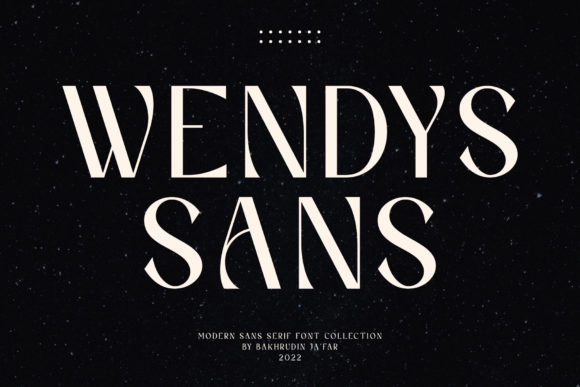
Prepare to be mesmerized by Wendys Font, a sans serif font that dances with elegance and distinction. Its unique stroke characters add a touch of whimsy and charm, making it a versatile choice for a wide range of projects. Whether you're crafting eye-catching digital designs, making presentations that demand attention, or creating heartfelt greeting cards, Wendys Font has the power to transform your creative visions into stunning realities.
With its modern and stylish appearance, Wendys Font is the perfect choice for web banners that aim to captivate and engage. Its crisp lines and distinct letterforms ensure that your messages shine with clarity and impact, leaving a lasting impression on your audience. Unleash your creativity and let Wendys Font elevate your web presence to new heights.
Dive into a world of boundless possibilities with Wendys Font. Its versatility extends beyond web banners, making it an ideal companion for crafting projects, presentations, and greeting cards. Let your imagination run wild as you explore the endless opportunities that await you with this remarkable font. From personalized invitations that exude warmth and charm to captivating social media graphics that demand attention, Wendys Font is your trusty ally in creating designs that resonate and inspire.
Embrace the beauty of seamless readability with Wendys Font. Its carefully crafted letterforms ensure effortless reading experiences, making it the perfect choice for presentations that demand attention and clarity. Whether you're captivating a room full of colleagues or students, or sharing your ideas virtually, Wendys Font ensures your message is conveyed with impact and professionalism.